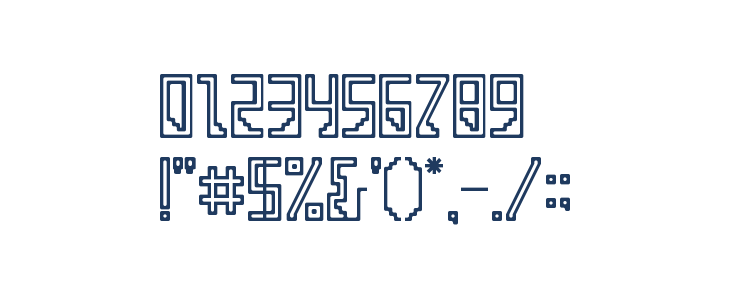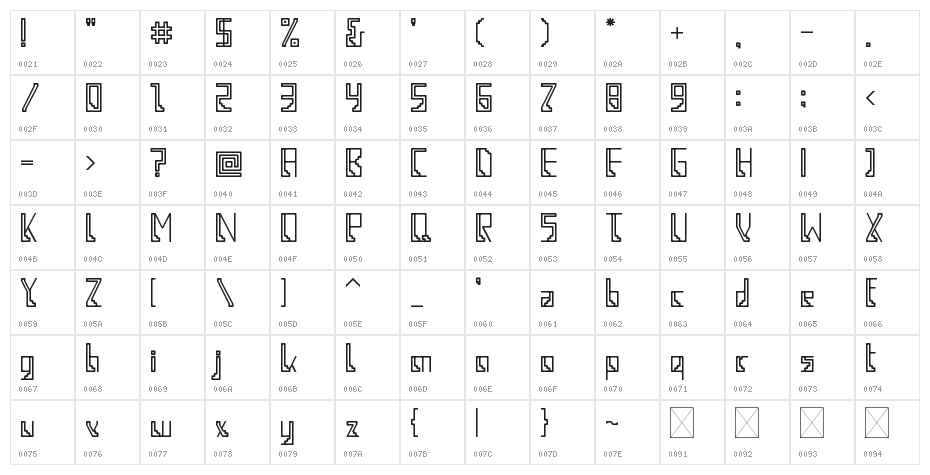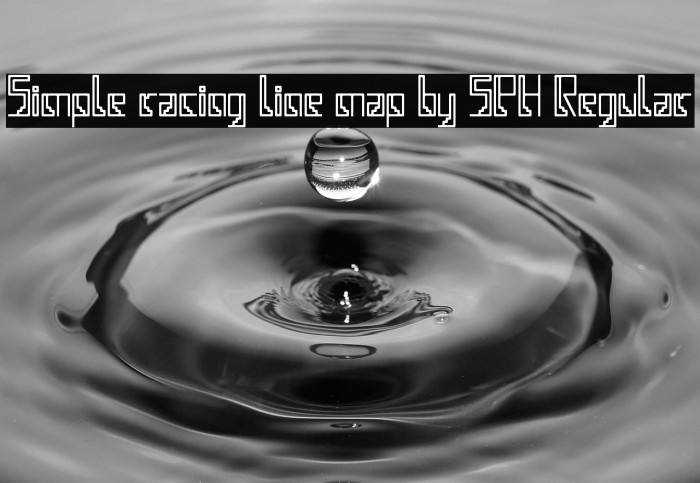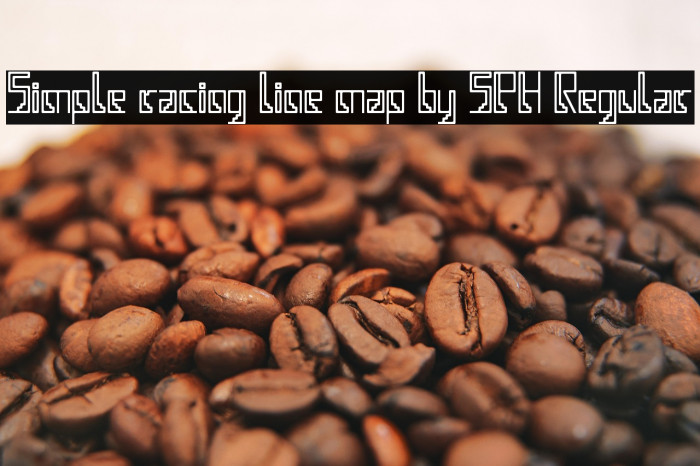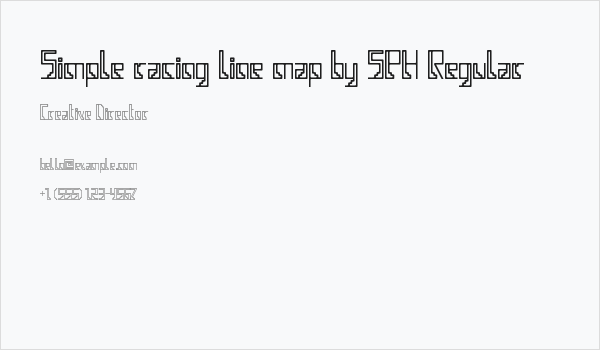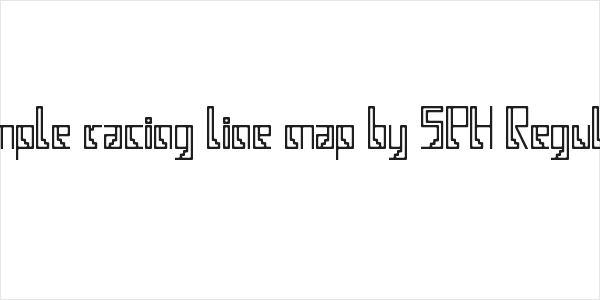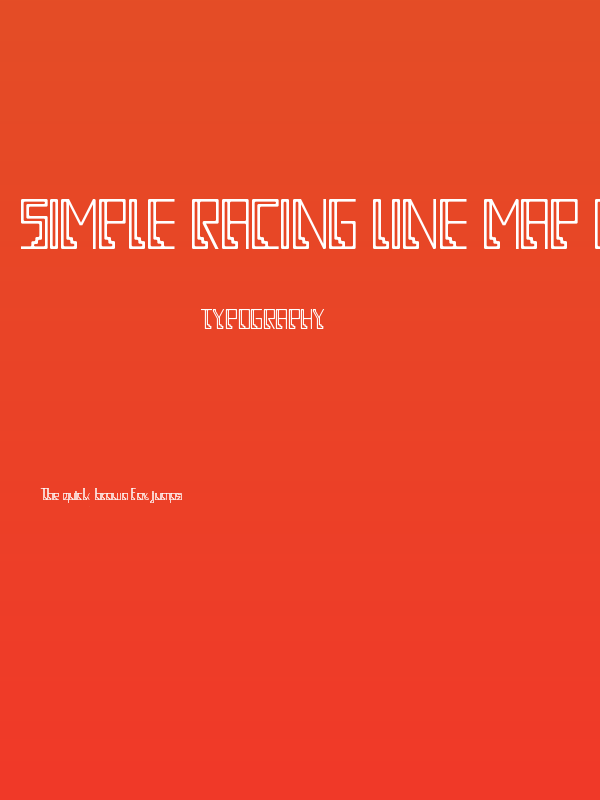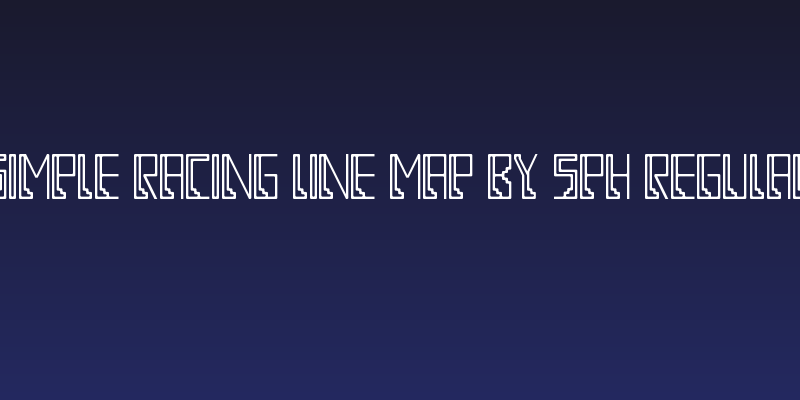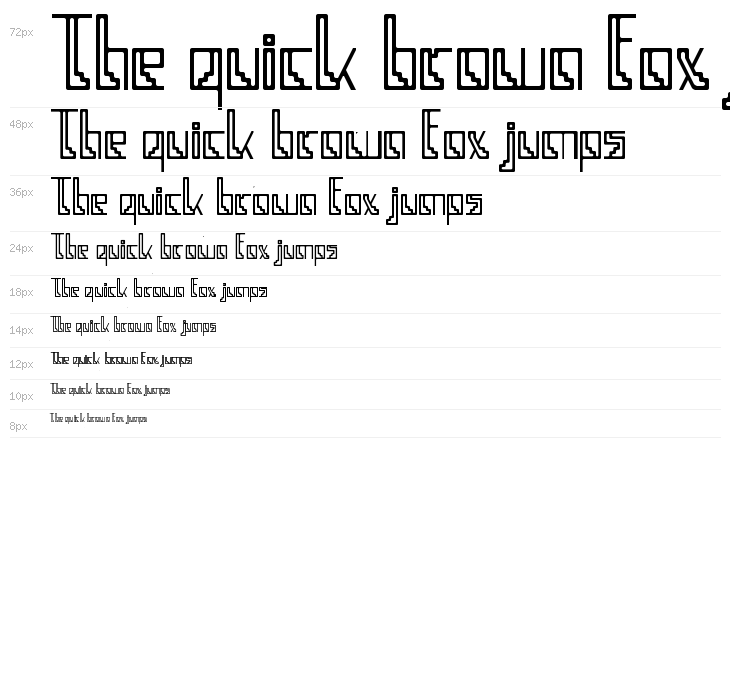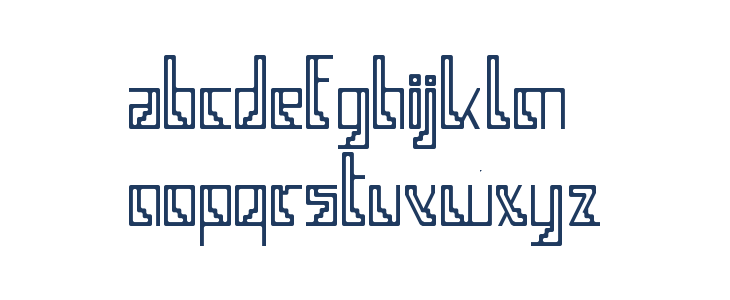
Simple racing line map by SPH Regular Font
Simple racing line map by SPH Regular Description
This font features a unique, angular design reminiscent of racing tracks or digital circuits. Each character is composed of straight lines and sharp angles, giving it a futuristic and mechanical appearance. The uppercase and lowercase letters maintain a consistent style, with the lowercase being slightly more compact. Numbers and special characters follow the same design principles, ensuring uniformity across all glyphs. The font's geometric nature makes it stand out, ideal for projects that require a modern and edgy look.
| Proposed Projects | Ideal for video game titles, tech-themed posters, racing event branding, and digital art projects. |